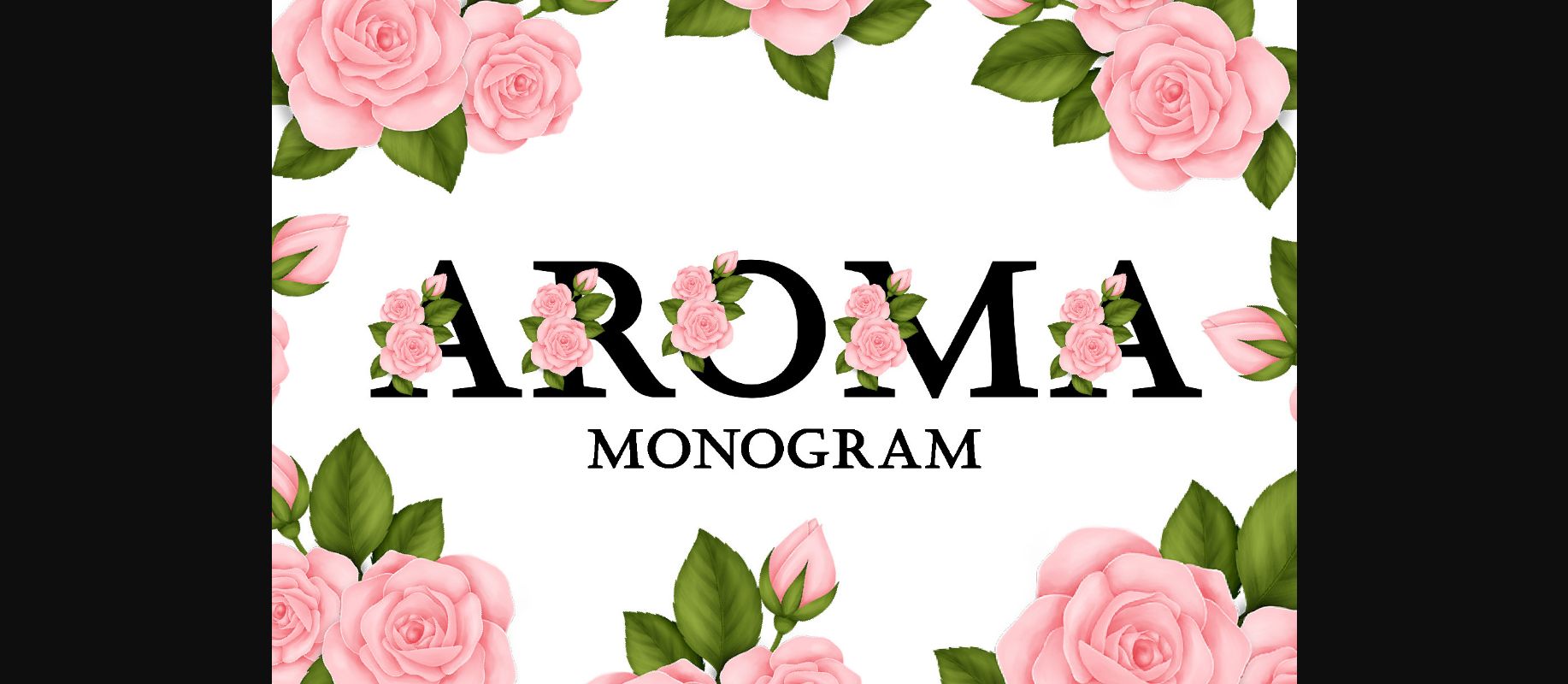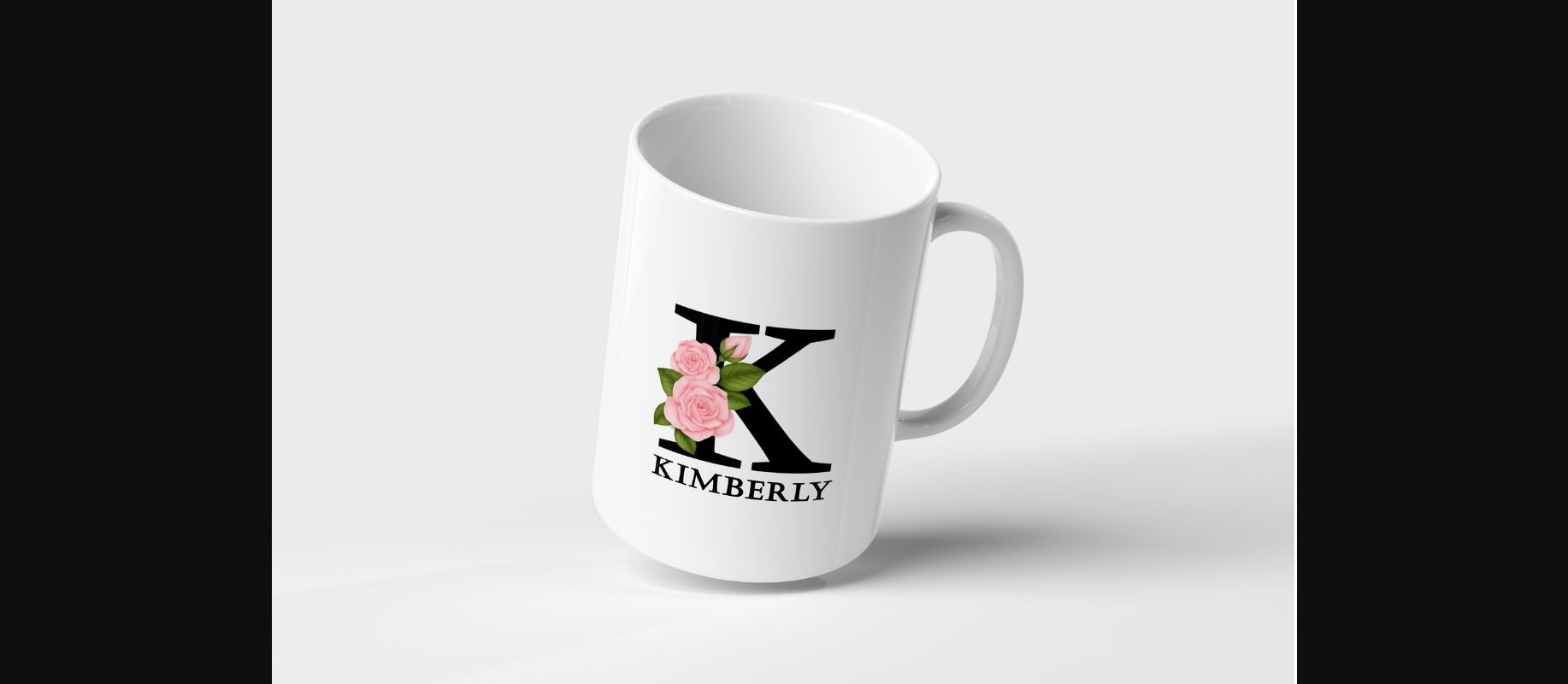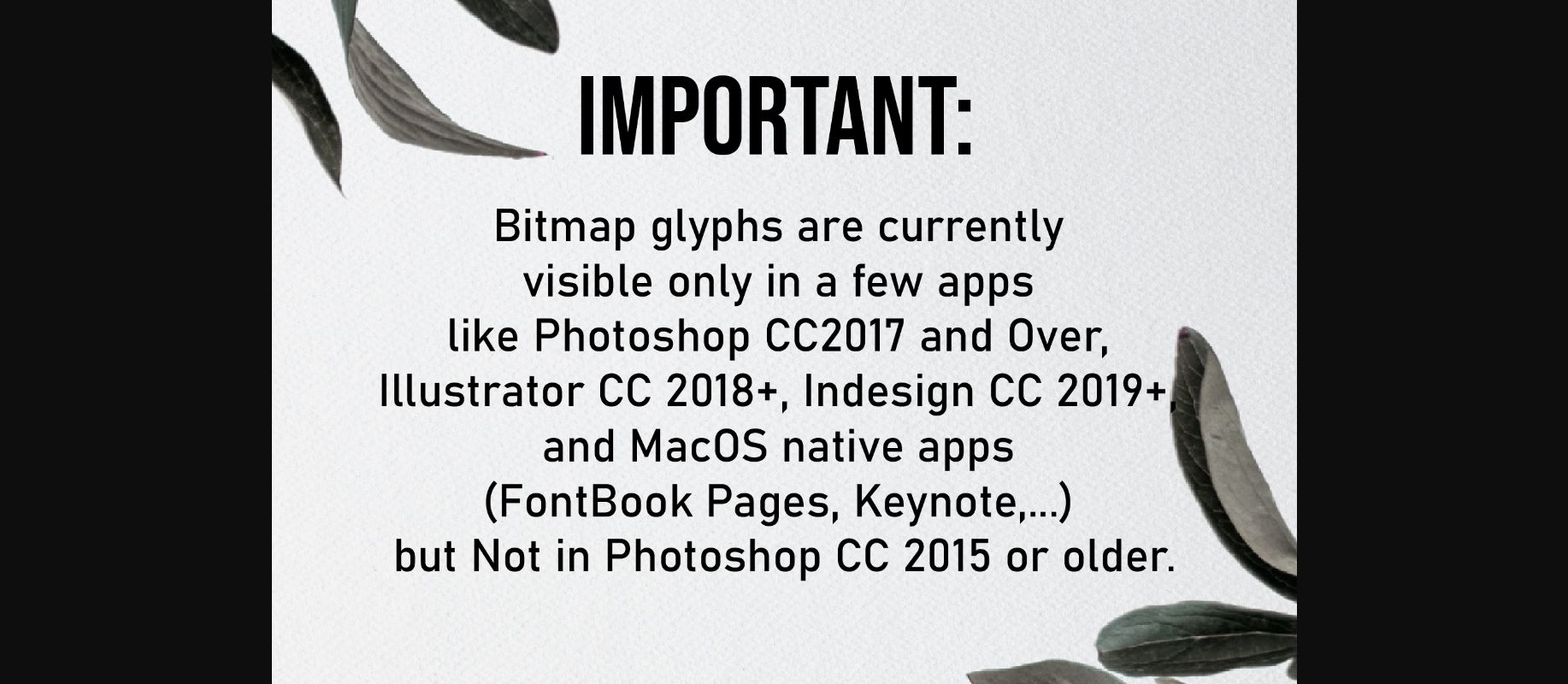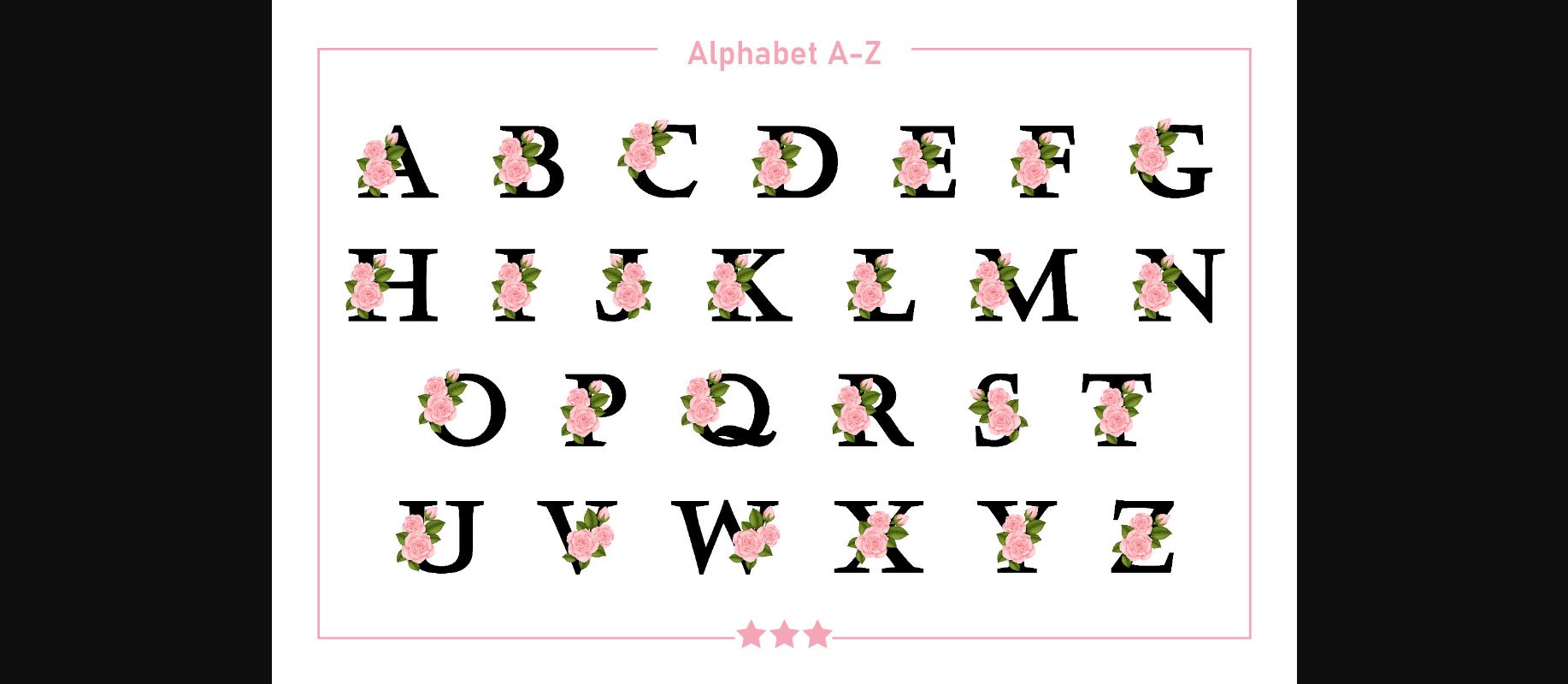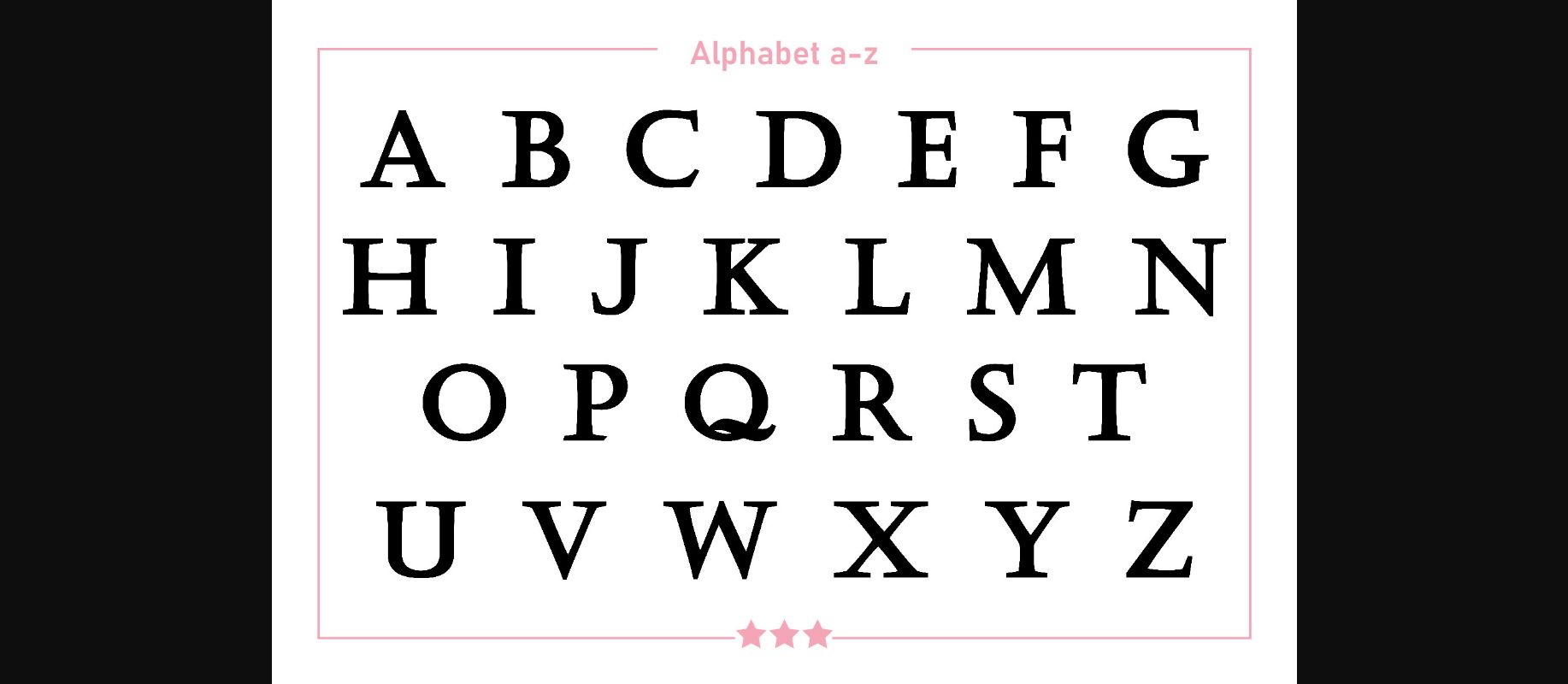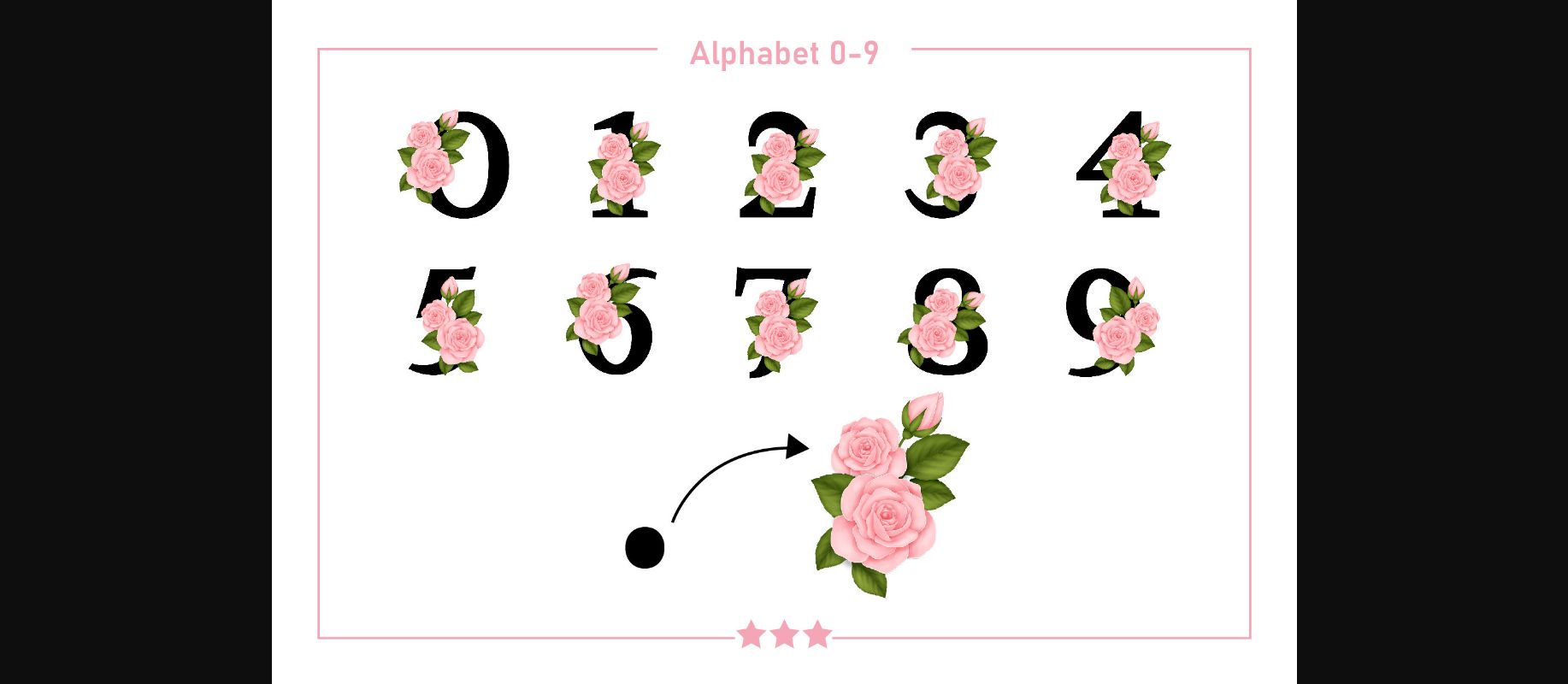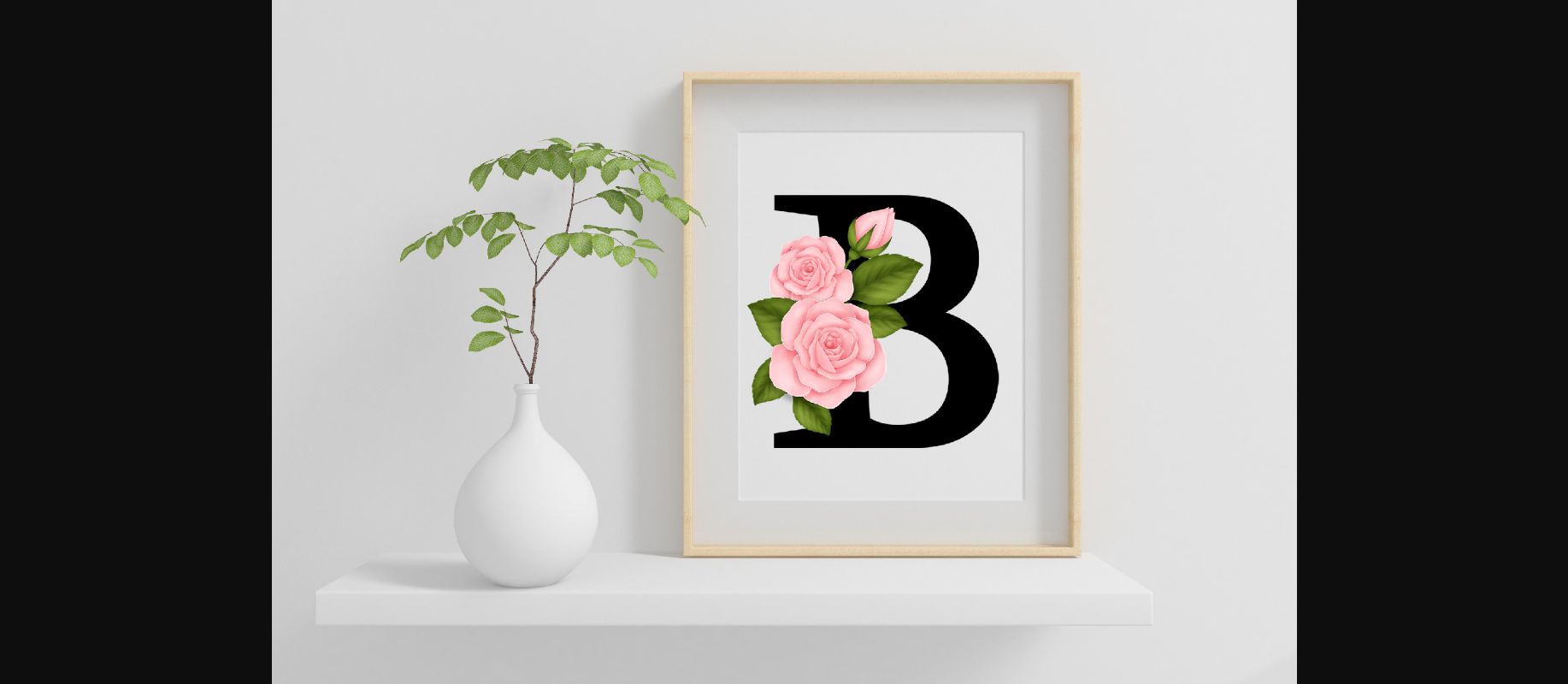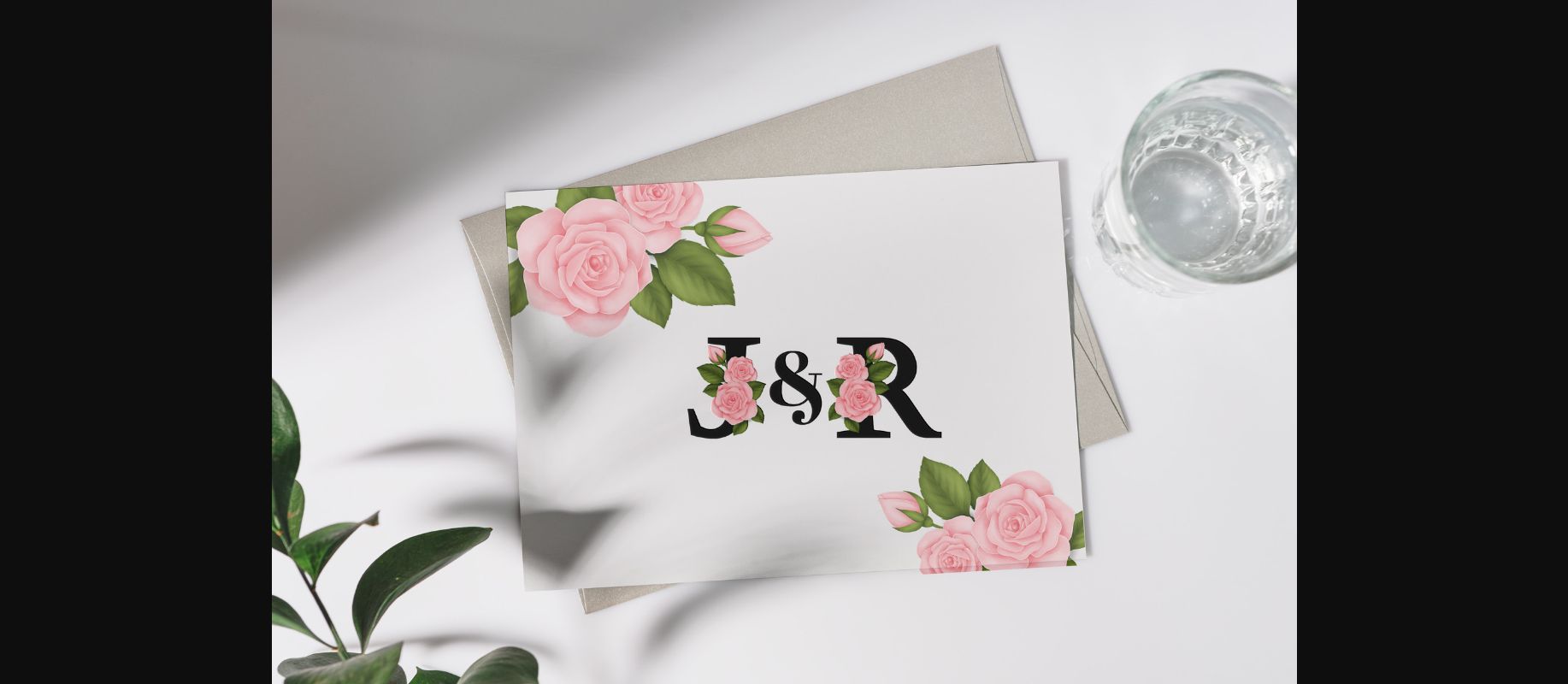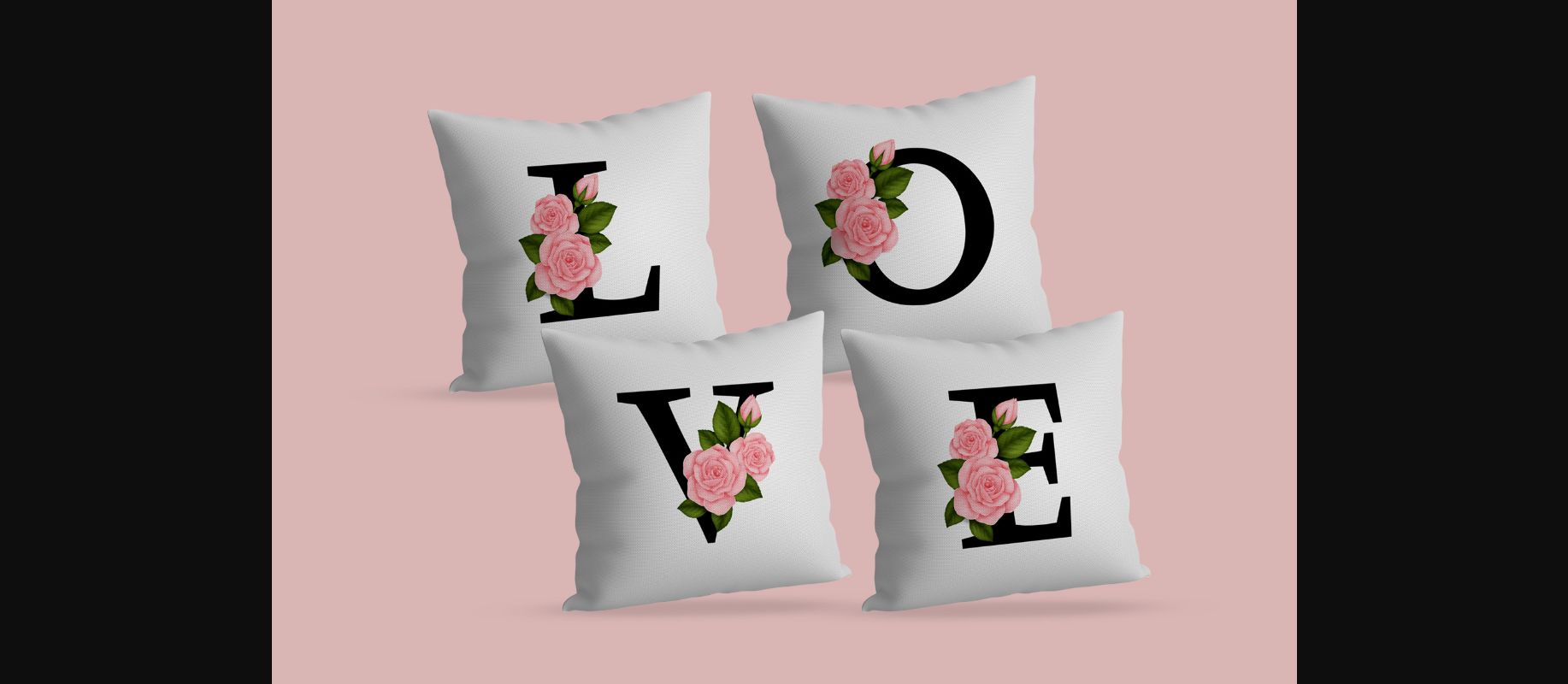
Aroma Monogram Font
About Aroma Monogram Font
Aroma Monogram is a delicate and highly detailed decorative font. Fall in love with its authentic feel and use it to create gorgeous invitations, beautiful stationary art, eye-catching social media posts, and cute greeting cards. Add this beautiful font to each of your creative ideas and notice how it makes them stand out!